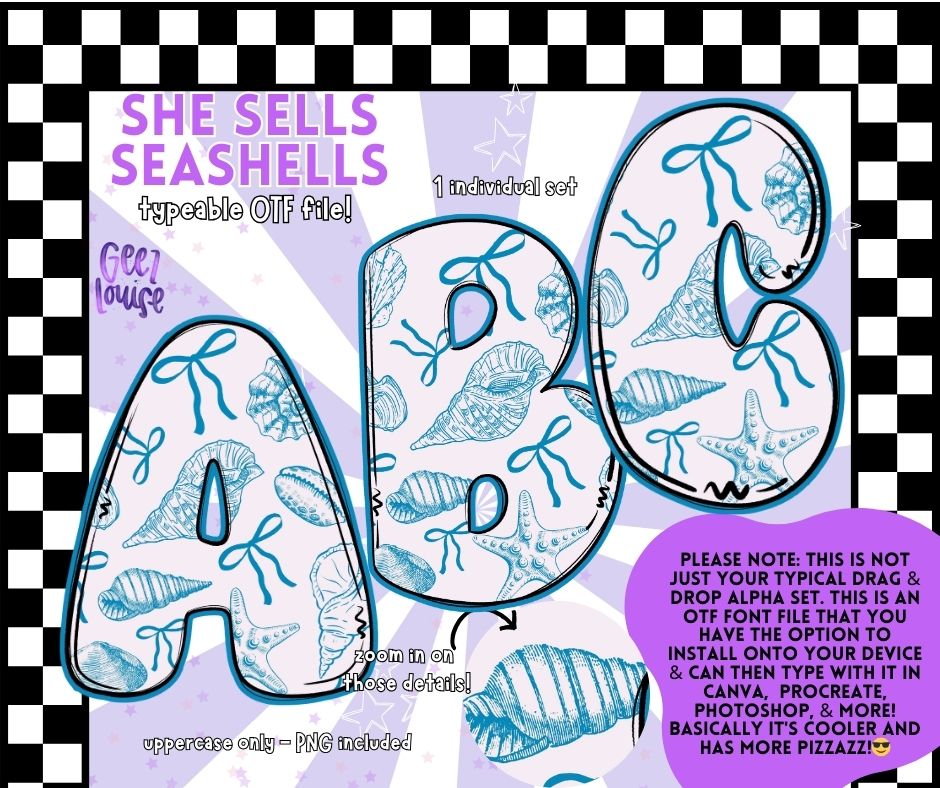
She Sells Seashells – Beachy OTF Font + PNG Alpha Set | Coastal Nautical Letters
🐚 Description:
Bring the beach vibes to your designs with She Sells Seashells, a dreamy OTF font filled with coastal charm! 🐚🌊 Inspired by sun-soaked shores and salty air, this typeable font is decorated with hand-drawn seashells, starfish, and sea treasures in beautiful ocean blues.
✅ Hand-drawn seashells, starfish, bows & more in coastal blue
💙 Adds nautical flair to your projects
🐬 Playful, whimsical, and oh-so-summery